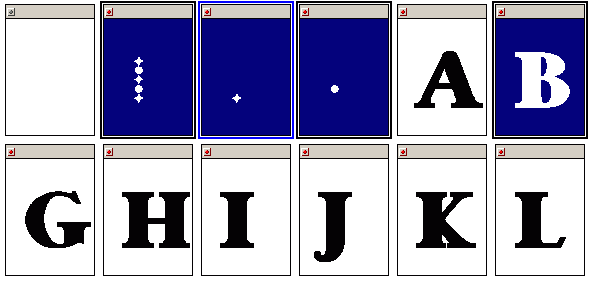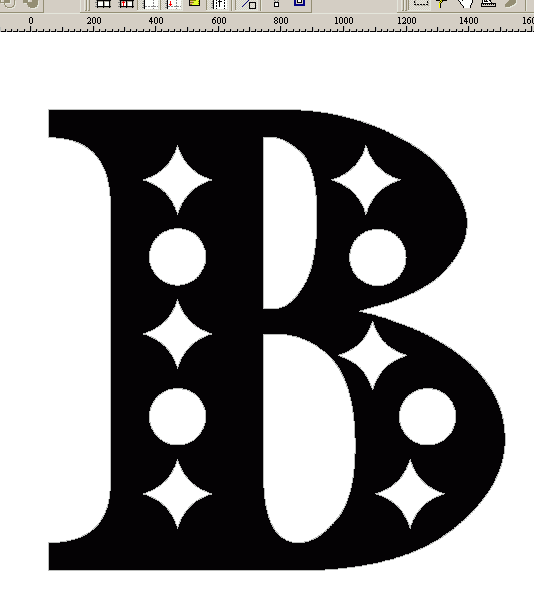
New Fonts From Old
If you like decorative fonts, this is an easy way to make one from an existing font. I used my own Garava Heavy to test the theory.
Stage 1
• Copy the letters you want to decorate to new empty glyphs. Hinting will be preserved if they are hinted.
• Create two or three new glyphs containing the decorations, which need to be anticlockwise contours.
• Select the decorations you want to use, and the copied letter you want to use it with.
Stage 2
• Open the original undecorated glyph (the one with mappings), make it empty and paste the clipboard contents. The result will be a composite glyph like this:
Stage 3
• Move the decorative elements — using guidelines to position them if it helps.
• Repeat using control to copy composite glyph members within the composite glyph.
• Press Control H to view the results without any screen clutter. Press H to exit from clean screen mode.
I decided to try this technique so as hopefully to produce an additional font.
I made a copy of my working font CHRON026.TTF Chronicle Text 026 (which is the font from which I produced CHRONTXT.TTF Chronicle Text version 0.26 which is available on the web, that production by deleting the unused glyph positions still left in from the original Font Creator “new” file and then recalculating the ranges in Format | Settings … | Ranges). The copy is CHROL026.TTF Chronicle Text Lozenge 026. Readers wishing to try the experiment practically can use a copy of Chronicle Text version 0.26 if they so wish.
Details of Chronicle Text are in the Gallery forum.
Firstly I produced a counterclockwise countour within the glyph for e with the following four on-curve points.
256, 1024
152, 768
256, 512
360, 768
This contour I then copied onto the clipboard and then went through the a..z and A..Z alphabets pasting that contour onto the glyph in those glyphs where it fitted within the clockwise contour or did so if it were moved horizontally 256n font units where n is an integer. This was most of the characters, all except S, V, X, Y, Z and s, v, x, z.
I then added an extra, unmapped, glyph with the above contour and a clockwise contour with the following points.
256, 1128
464, 768
256, 408
48, 768
Another clockwise contour was added to that glyph so that the above contours would not be shifted to the left when saving the font.
0, 0
0, 256
256, 256
256, 0
I then produced the S, V, X, Y, Z and s, v, x, z for the font by applying the clockwise lozenge and the using Select All and Edit | Join Contours | Union and then adding on the counterclockwise lozenge so that it fitted within the clockwise lozenge. Both lozenges were sometimes moved the same distance horizontally, though always 256n font units horizontally, never vertically.
This has produced a font which, in my own opinion, is rather stylish, almost like ice crystals rather than snow, which I am hoping to publish.
I am thinking about how to apply the idea to some of my other fonts. I am already thinking of a thin vertical line 80 font units wide with rounded ends for Quest text.
The completed font is now published and is available on the web.
It is Chronicle Text Lozenge version 0.26.
Having produced the Chronicle Text Lozenge font I thought that it would perhaps look nice if in some applications of the font the lozenges could take their own colour, rather than taking the colour of the background. However, I realized that as some of the counterclockwise lozenges go outside a clockwise contour of the original Chronicle Text font that Chronicle Text would not provide a suitable underlay font.
Thus I have produced CHRONTXS.TTF Chronicle Text Sublozenge from a copy of CHRONTXL.TTF Chronicle Text Lozenge by removing the counterclockwise lozenges from displayable glyphs. For many characters the glyph in Chronicle Text Sublozenge is the same as in Chronicle Text, yet for a few, such as s and z, the glyph is different.
Both pdfs were produced using Serif PagePlus 9.04, a desktop publishing package. The pdf using Chronicle Text Lozenge and Chronicle Text Sublozenge together has the same text twice, with one copy on top of the other. The underlying copy is in Chronicle Text Sublozenge and has each of its letters coloured in a bright colour. When the copy in Chronicle Text Lozenge, all letters of which are in black, is positioned on top of it, only the colour within the lozenge shows through.